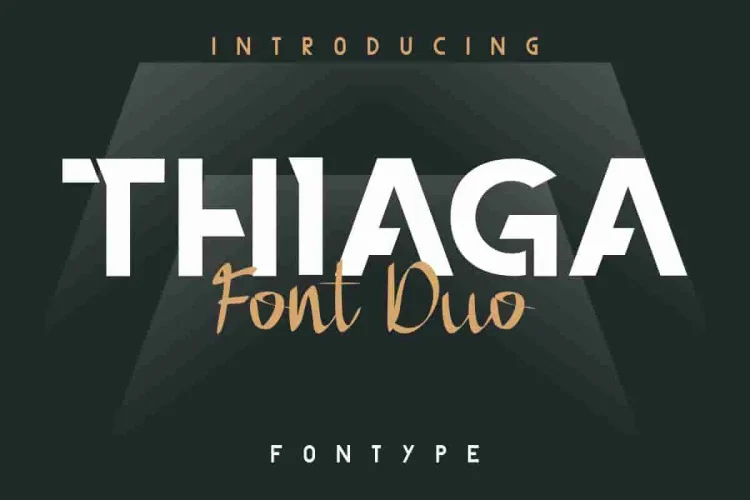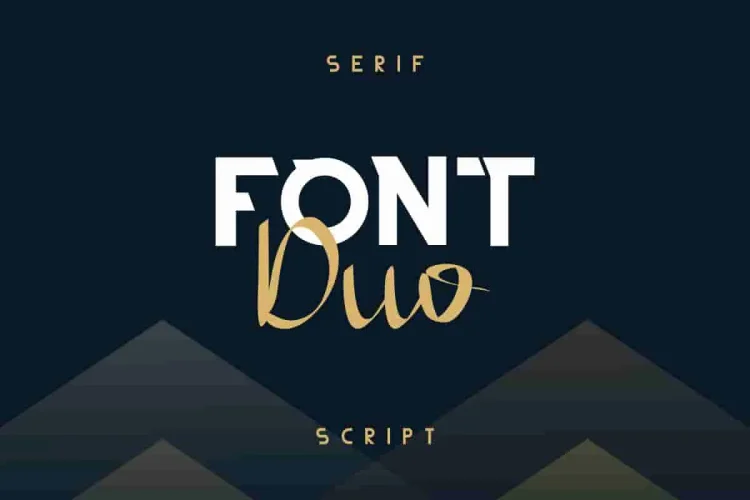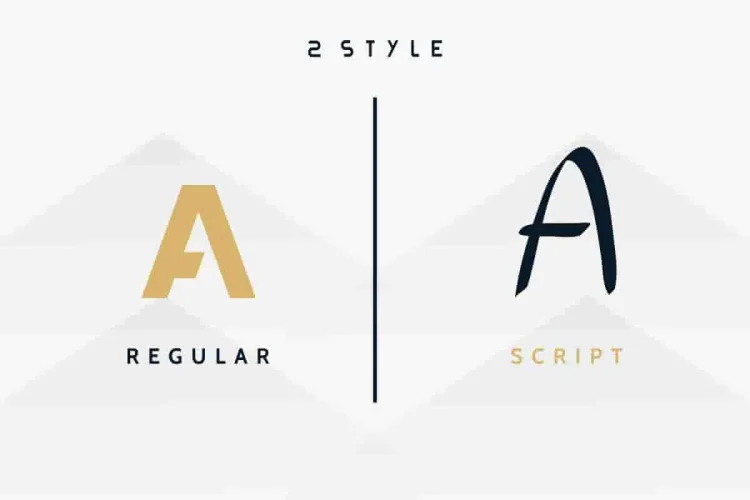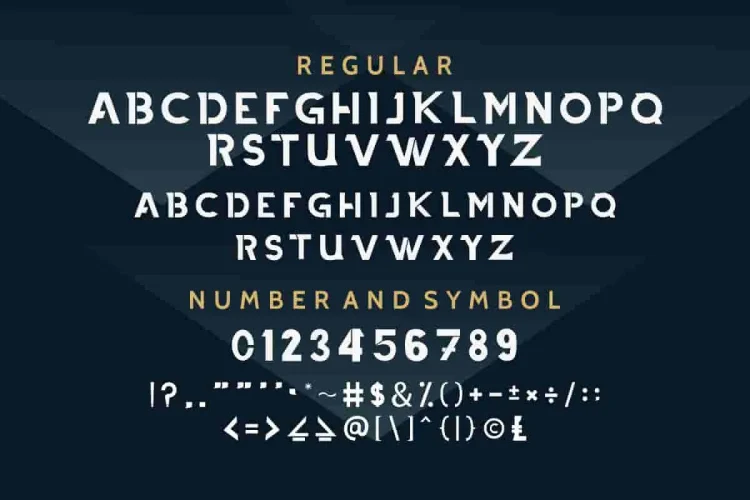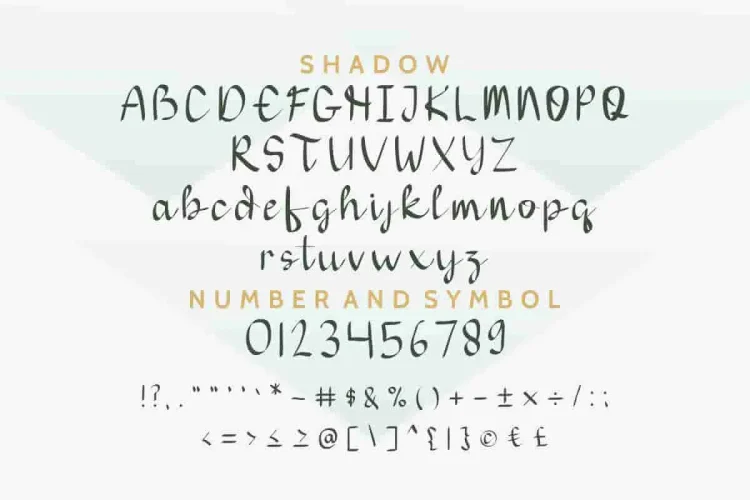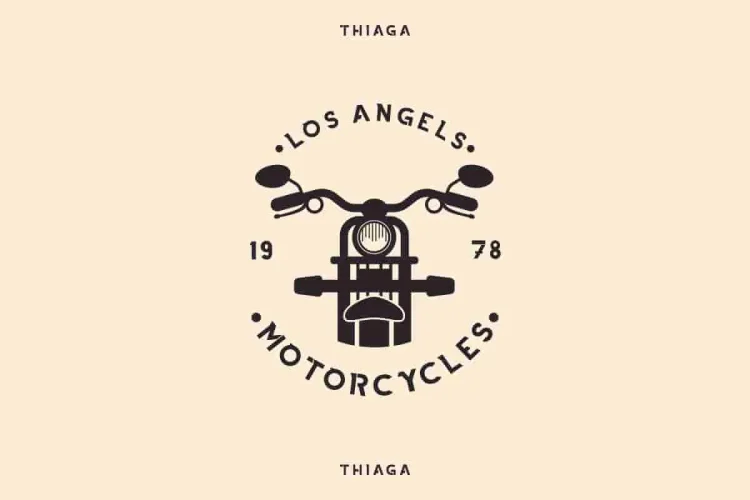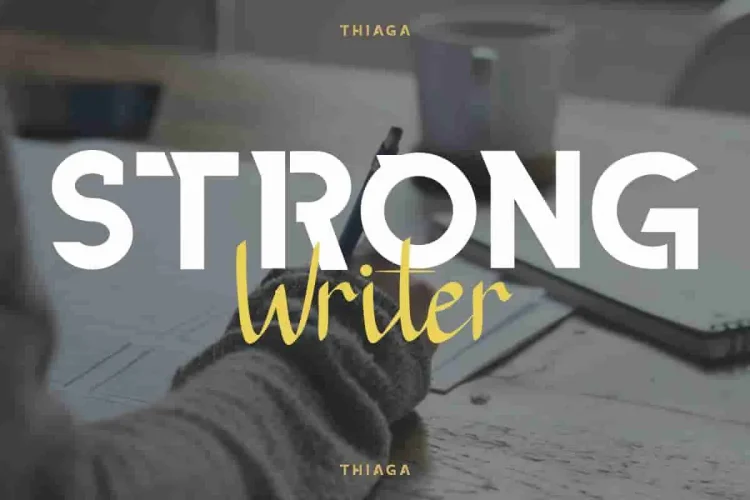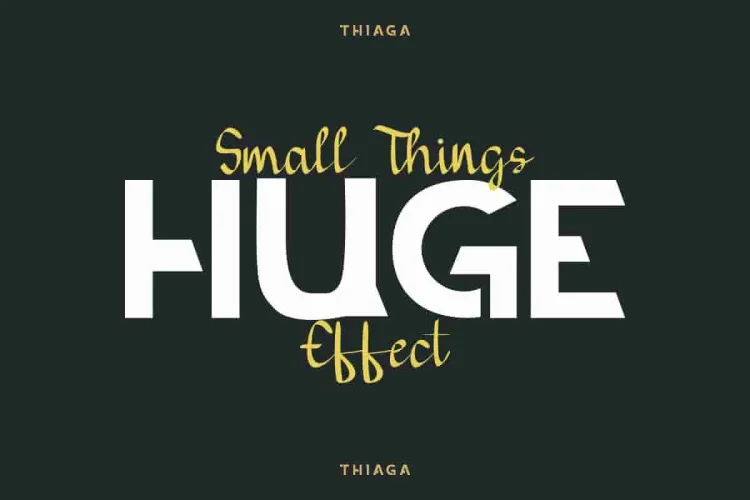
THIAGA Sans Script Font Duo
Introducing our newest font : THIAGA ! This is a new modern font DUO : Sans and Script: Modern Futuristic Sans with mono-spaced look and a stylish Handwritten Script. Designed with versatility and style in mind, THIAGA bridges the gap between structure and creativity—making. As a result it a must-have for designers, developers, and dreamers alike.
🧩 What Makes THIAGA Stand Out?
This isn’t your average font combo. In fact, THIAGA combines two distinctly powerful styles:
1. THIAGA Sans – Futuristic & Mono-Spaced
Engineered for clarity and impact, THIAGA’s sans serif is clean, geometric, and subtly mono-spaced. Therefore, It gives off a tech-forward and cutting-edge feel—perfect for startups, software companies, digital brands, and construction or real estate businesses.
• Vibe: Sleek, modern, minimal
2. THIAGA Script – Personal & Organic
Offset the precision of the sans with a flowing, handwriting-style script that brings warmth and individuality. This is great for signature logos, creative branding, artist portfolios, and lifestyle content.
• Vibe: Friendly, stylish, artistic
The look of this font is modern futuristic but it also suitable for many other concepts. For example, THIAGA for logos, stationery, business cards, signage, flyers, brochures, websites, and more. THIAGA works across industries such as tech, startup, application, games, portfolio, company, construction, real estate, services, law firm etc.
💡 Why Designers Love THIAGA:
• 🖌️ Dynamic Duo Font – Pair futuristic sans with handwritten script effortlessly
• 🧠 Moreover flexible Across Industries – From real estate to digital apps to creative studios
• 💼 Ideal for Branding – Build strong logos with a soft signature twist